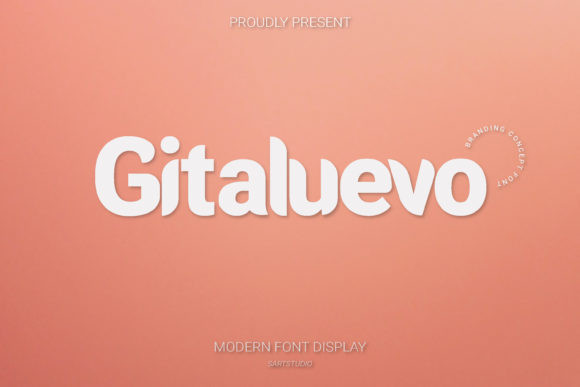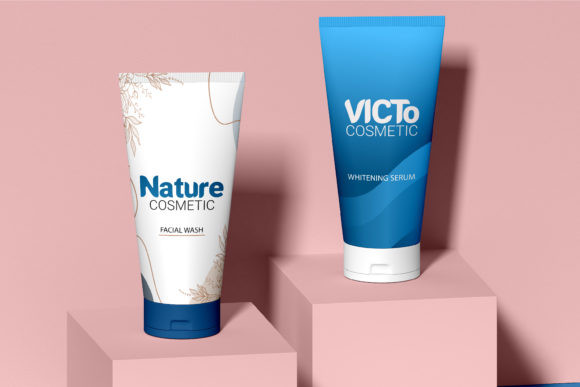
Gitaluevo Font
Gitaluevo is a modern and brushed display font. It is suitable for any branding, product packaging, invitation, quote, t-shirt, label, poster, logo that you wish to develop.